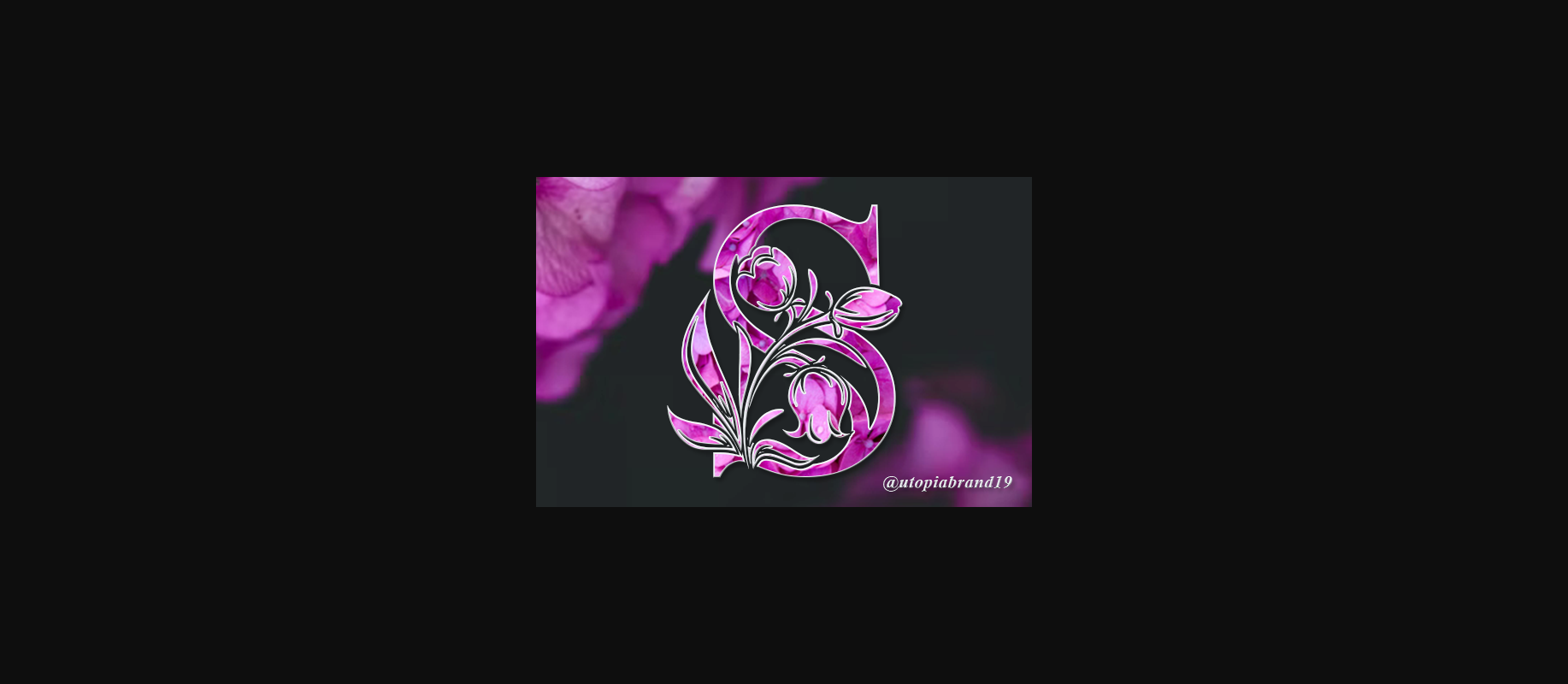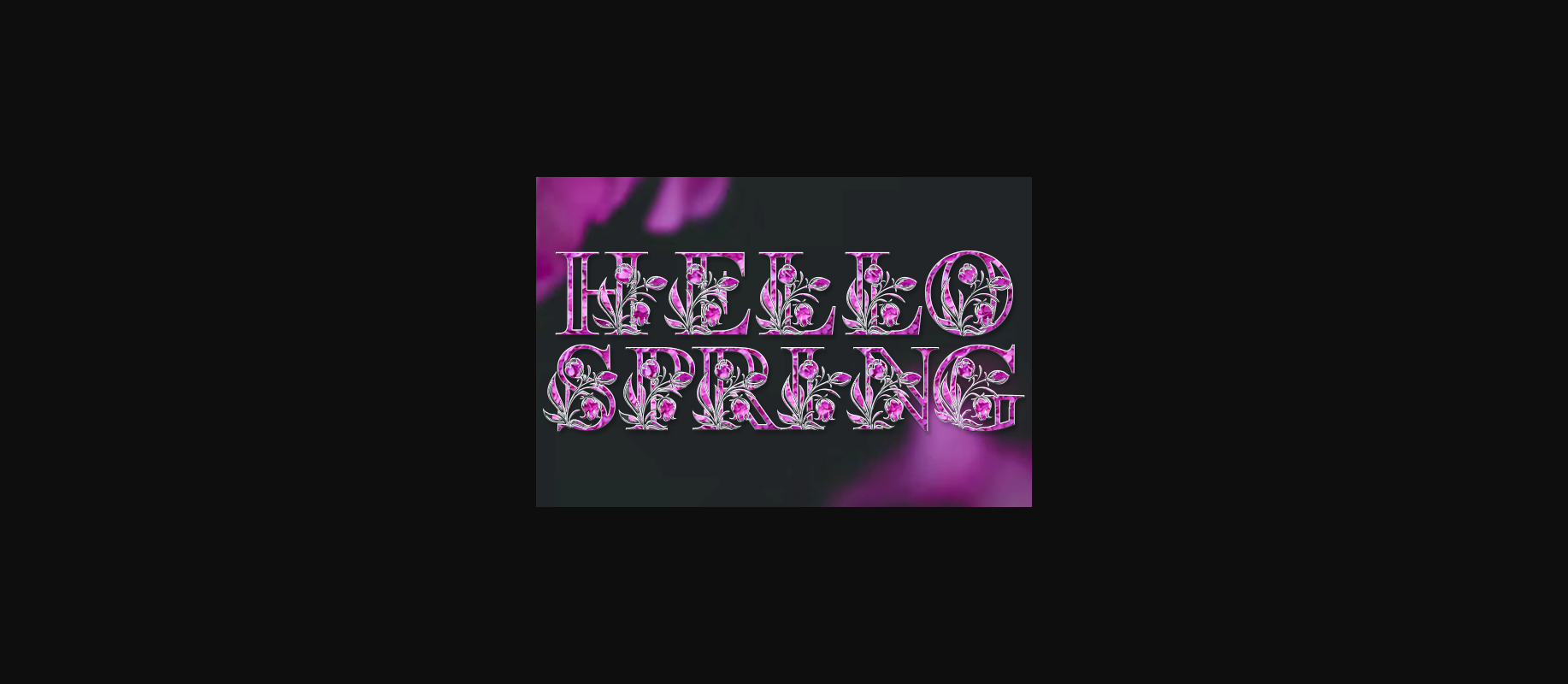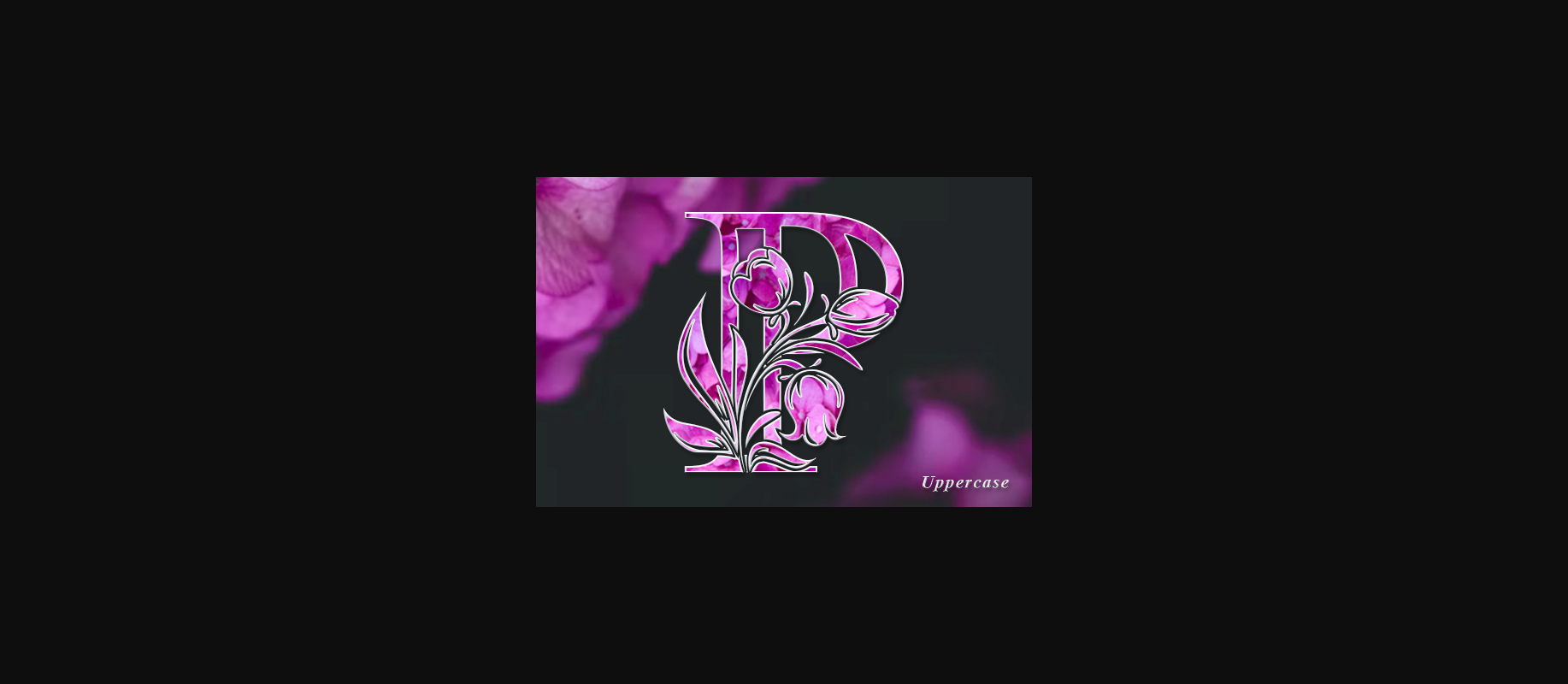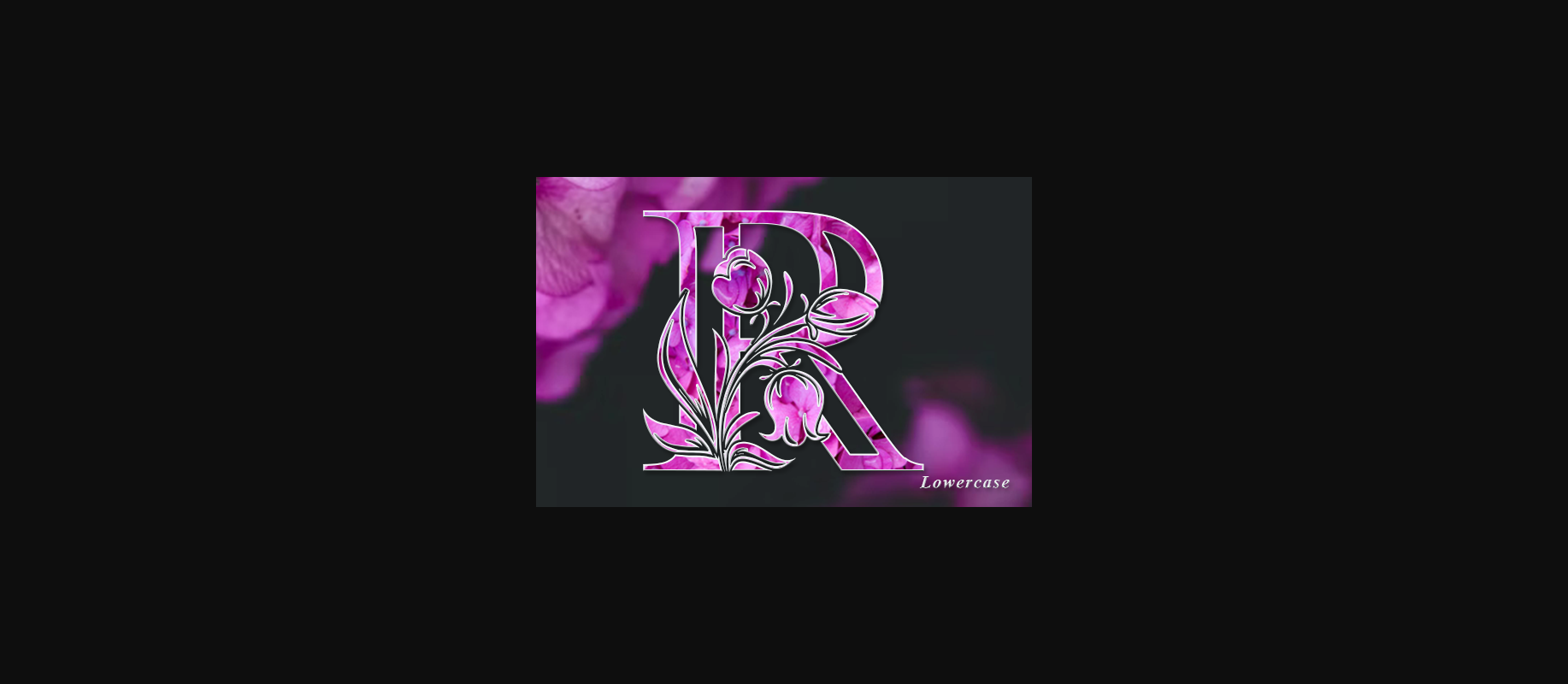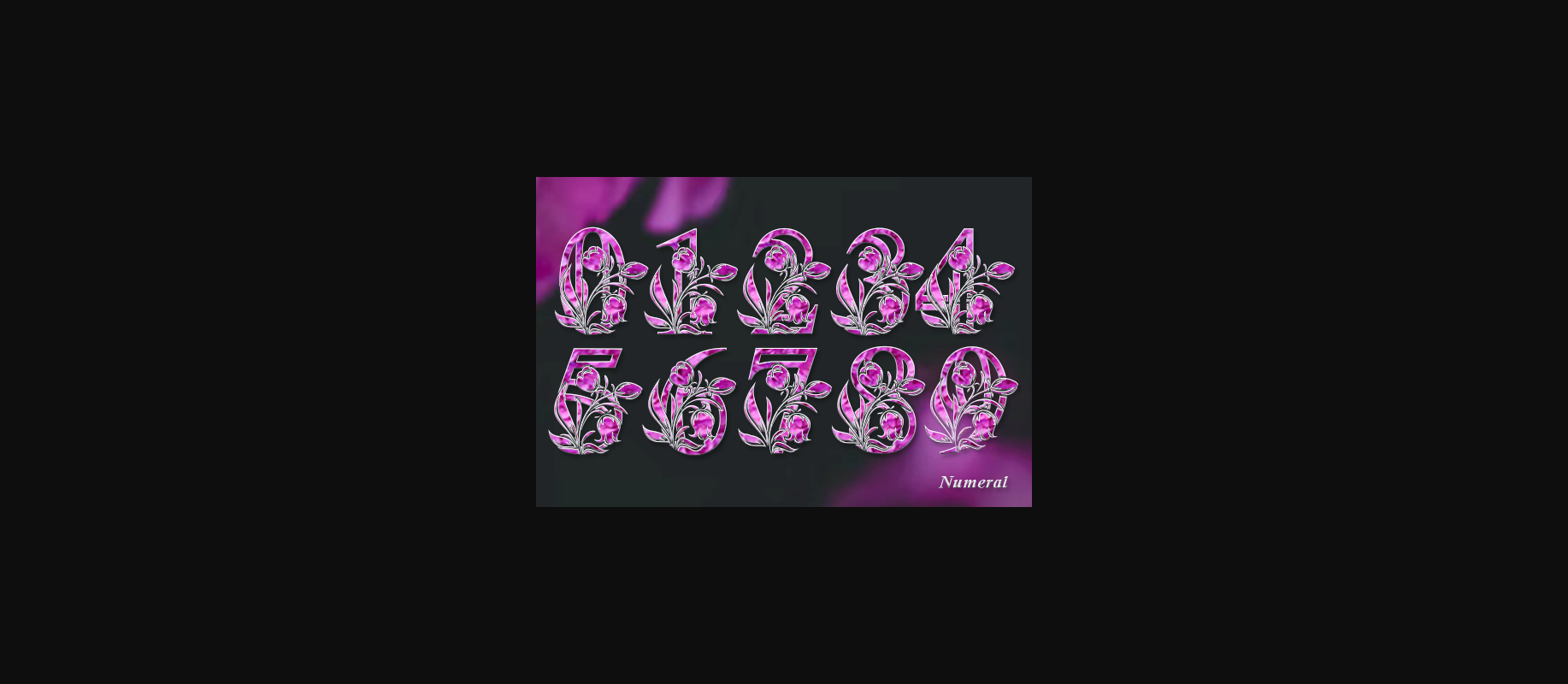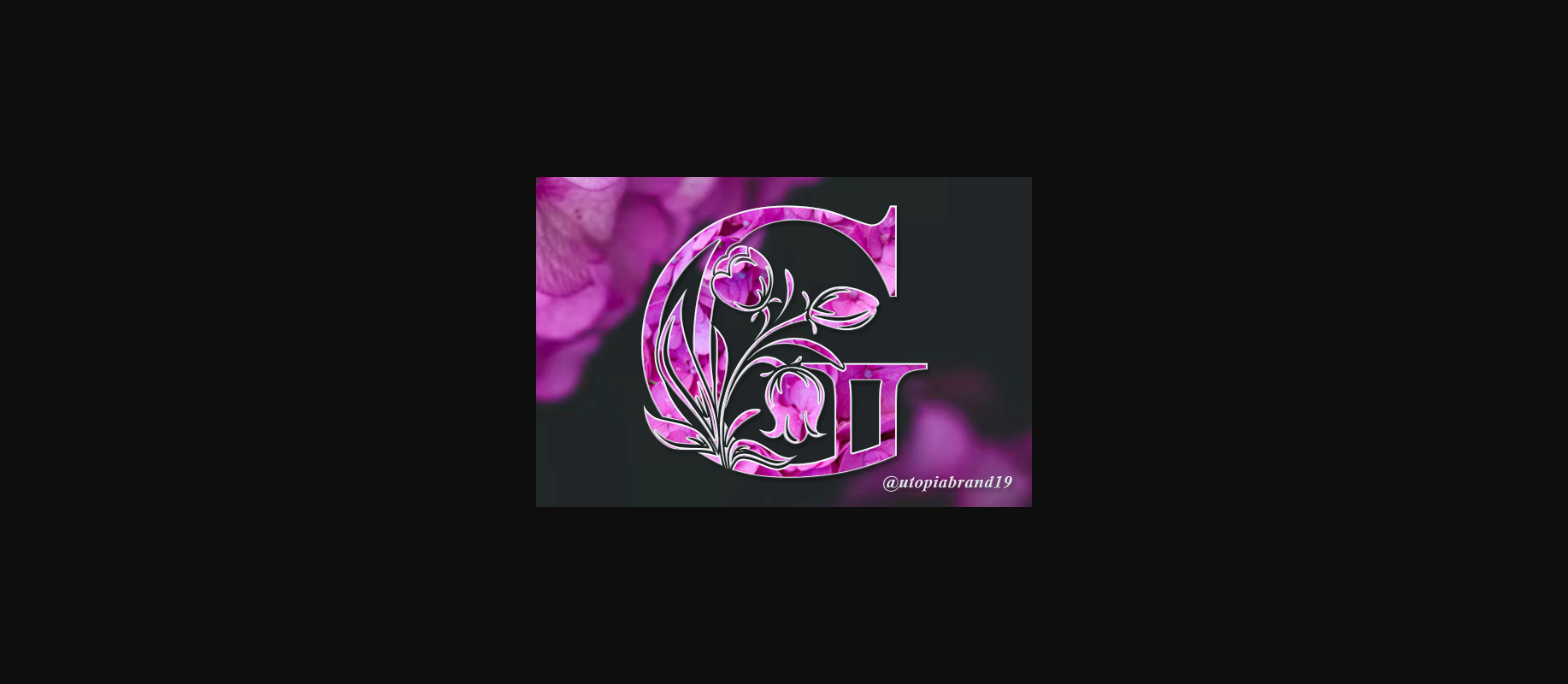
Hello Spring Monogram is a delicate and highly detailed decorative font. It features characters that dance along the baseline, this font will add a luxury spark to any design project that you wish to create!